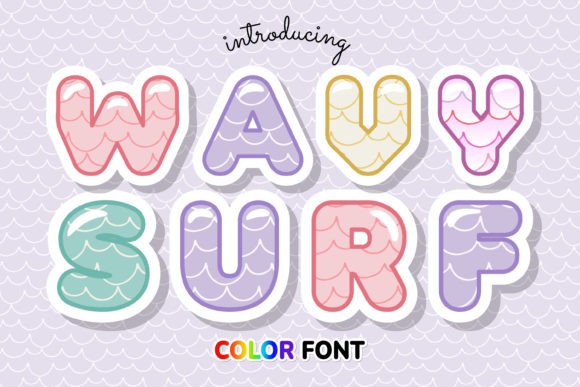
Dive into the enchanting realm of Wavy Surf Font, an extraordinary creation by JUSTTYPE, where colors and letters dance harmoniously to bring your designs to life. Inspired by the vibrant energy of ocean waves, this font is a symphony of playful curves and vibrant hues that will captivate your audience and leave them spellbound.
Wavy Surf Font isn't just a font; it's an artistic expression waiting to adorn your creations. Its unique Squiggly Pattern style dances across your designs, adding a touch of whimsy and joy that is sure to ignite your imagination and inspire boundless creativity. Whether you're a seasoned designer or a creative enthusiast, Wavy Surf Font is your gateway to a world of extraordinary visuals.
Unleash your creativity with Wavy Surf Font and witness the transformation of your designs. Dive into a sea of possibilities, where colors flow like crashing waves, leaving a trail of visual splendor in their wake. This remarkable font is the perfect companion for custom designs, DIY crafts, and any project that craves a vibrant, playful touch.
Picture this: Your website for kids, adorned with the captivating charm of Wavy Surf Font. The letters, like colorful sea creatures, playfully swim across the screen, inviting young explorers to embark on an enchanting journey. Engage their imaginations with headers that dance like waves, and let their eyes follow the vibrant text as it guides them through your website's captivating content.
The versatility of Wavy Surf Font extends beyond websites. Its Squiggly Pattern magic lends an air of enchantment to invitations, greeting cards, and posters, turning ordinary messages into extraordinary works of art. Transform your social media posts into eye-catching wonders, captivating your audience with visuals that dance and delight. The possibilities are endless, limited only by the boundaries of your imagination.
With Wavy Surf Font, you're not just downloading a font; you're embarking on a journey of creative exploration. Let your designs ride the waves of color and imagination, creating visuals that spark joy, inspire awe, and leave an indelible mark on your audience.